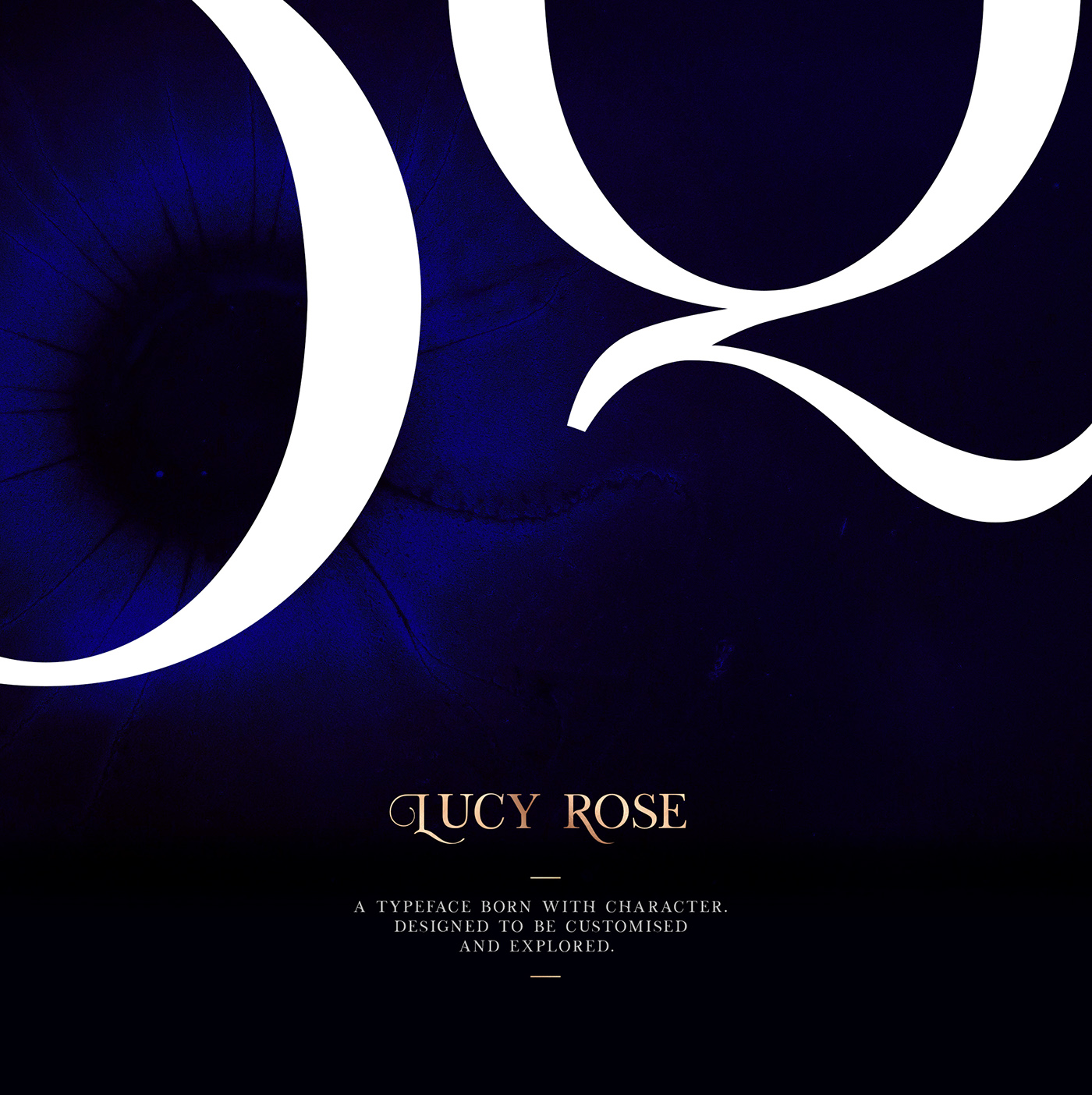
Lucy Rose - Free Font
A classic style and mixed with the new modern style. Introducing Lucy Rose Typeface! Lucy Rose designed by Ellen Luff. Lucy Rose is a typeface built with character, designed to be customised and explored. It’s an all caps typeface, with strong and sleek letters, which create a brilliant foundation for the flourished alternatives to rest. The result is beautiful interlocking and totally unique designs. It features over 100 stylised alternatives, offering an infinite opportunity to customise and create logos, headlines and titling. It’s original form is elegant yet stately and is well suited to editorial, books, advertising, branding and packaging.